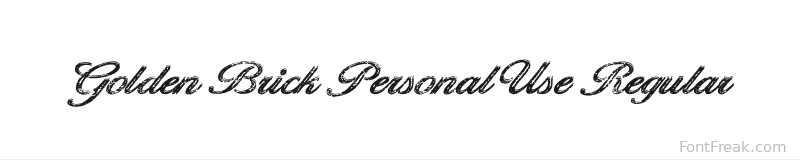
Golden Brick Personal Use Regular
About Golden Brick Personal Use Regular
Golden Brick Personal Use Regular is a stunning display font designed by Billy Argel Fonts, characterized by its decorative script style. This font features elegant, flowing letterforms that embody a sense of sophistication and creativity. With a medium stroke weight and moderate contrast, the characters are designed to maintain legibility while offering a stylish flair. The spacing between letters is thoughtfully adjusted to enhance readability, making it suitable for various applications.
This font shines in several unique use cases. It is perfect for wedding invitations, where its graceful curves can add a romantic touch to the design. Additionally, it works well for movie posters, bringing a sense of drama and artistry that captures attention. Restaurant menus can also benefit from the font's decorative nature, elevating the dining experience with an appealing aesthetic. Graphic designers will find it an excellent choice for branding projects, as it can convey a distinct personality for small businesses. Content creators can utilize the Golden Brick Personal Use Regular font free download to enhance their social media graphics, making their posts stand out in a crowded digital landscape.
Targeting a diverse audience, this font appeals to graphic designers, small business owners, and content creators alike. Its versatility and charm make it a valuable addition to any creative toolkit. What sets Golden Brick Personal Use Regular apart is its unique blend of elegance and approachability, allowing it to adapt seamlessly to various design contexts. Whether you’re crafting a heartfelt invitation or an eye-catching poster, this font ensures your message is delivered with style and flair.